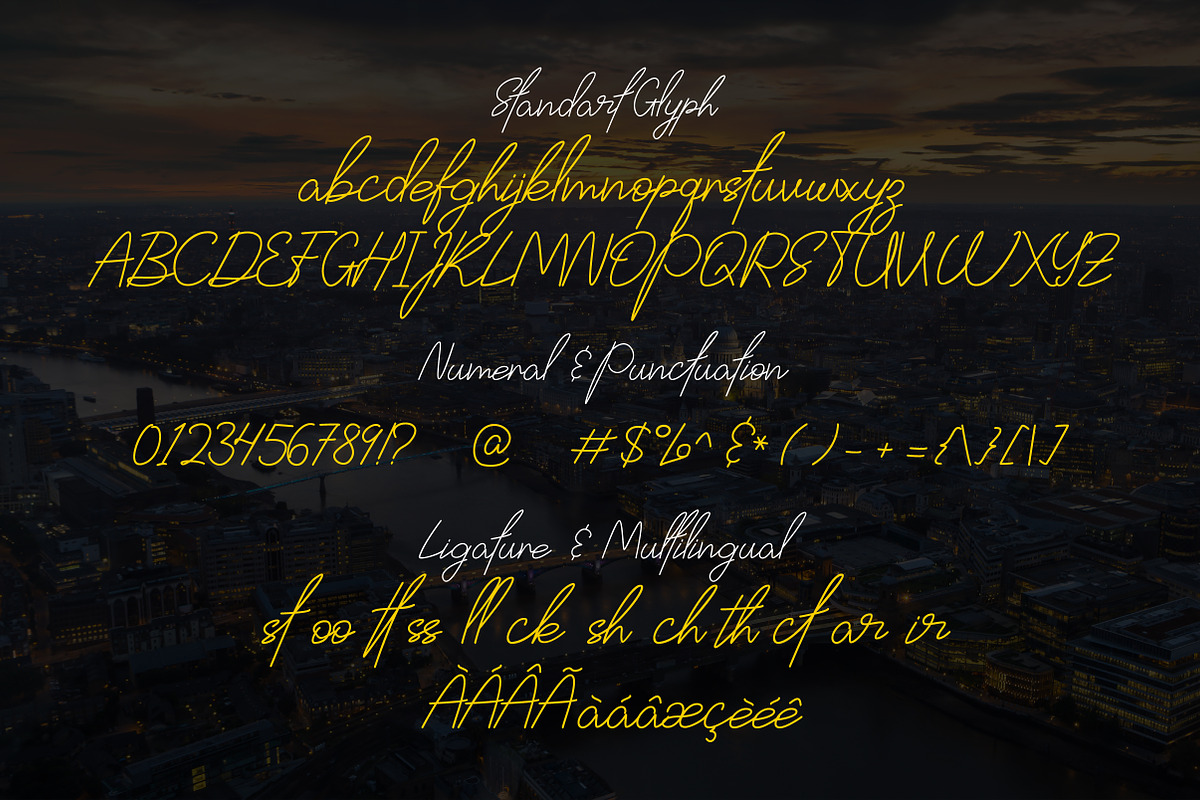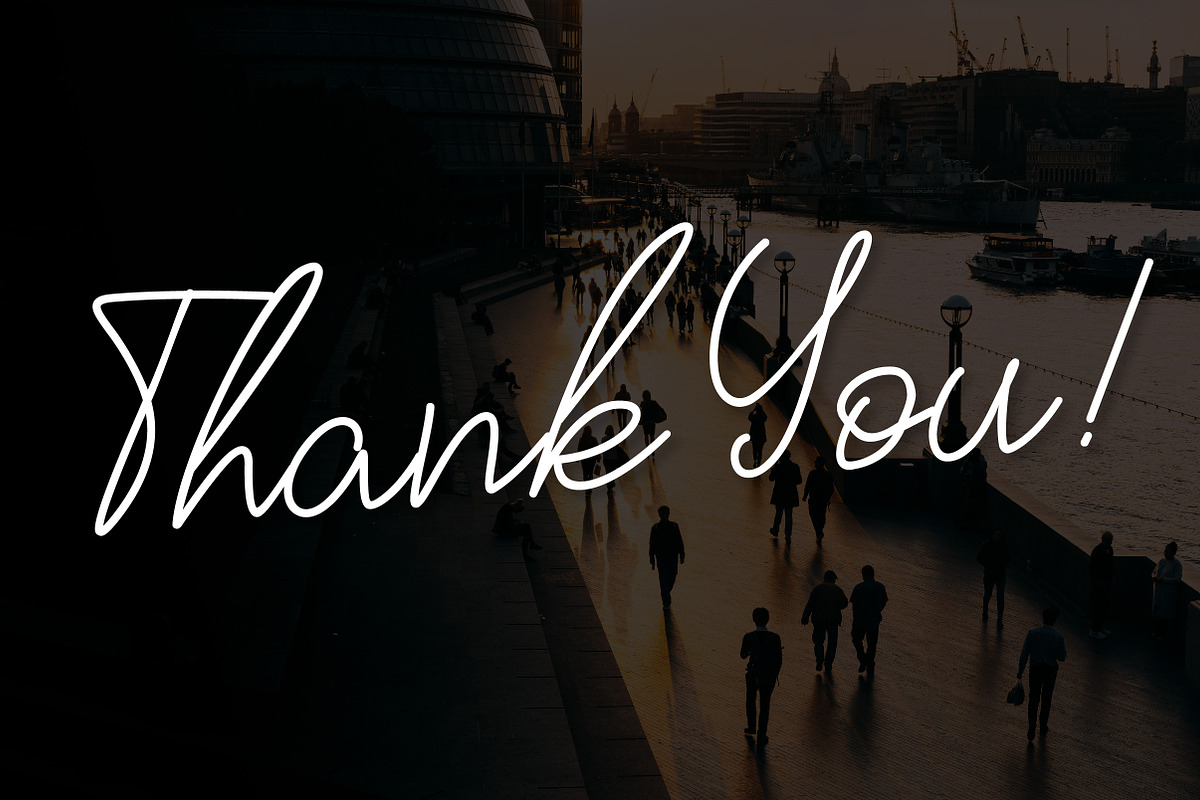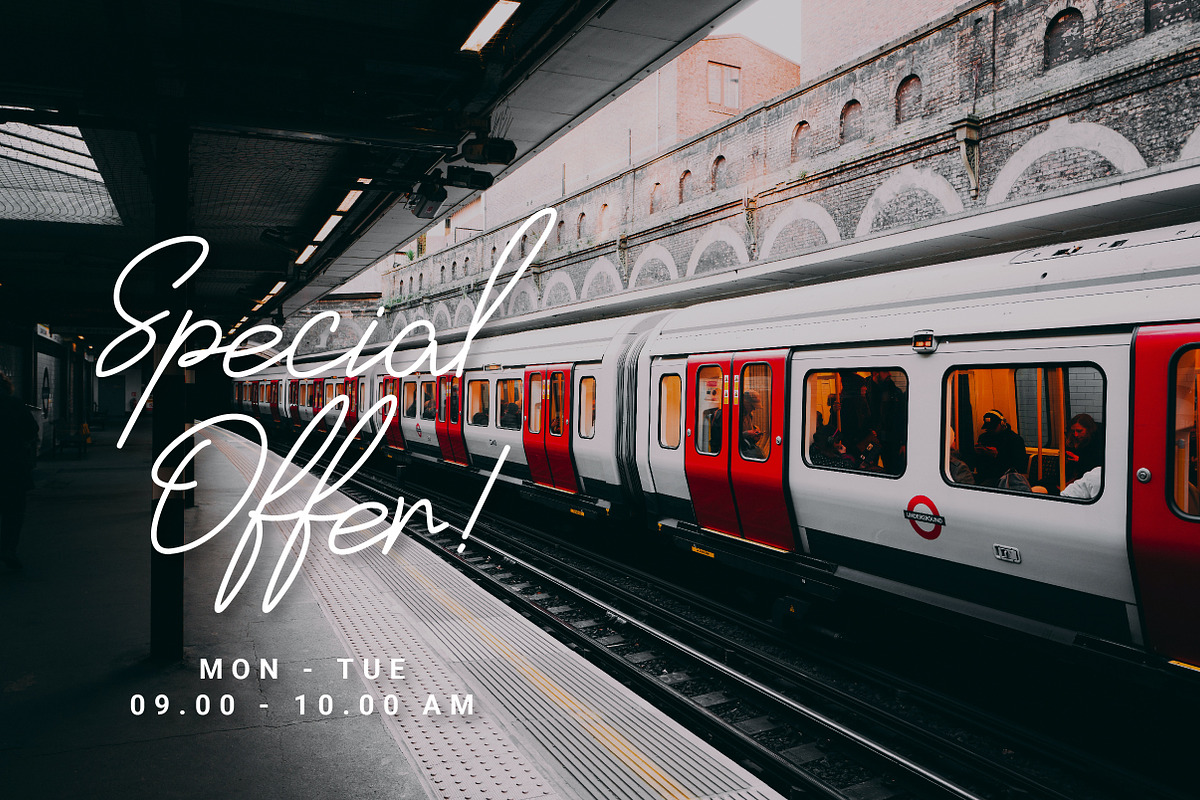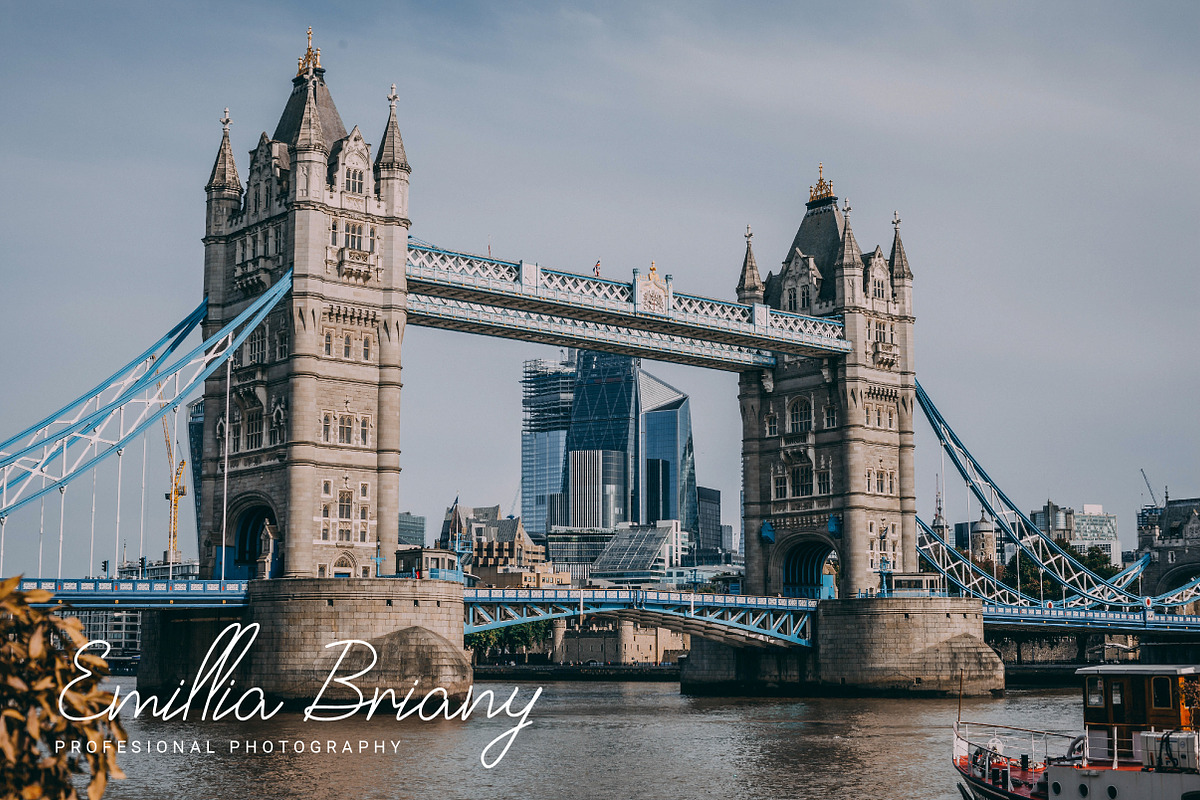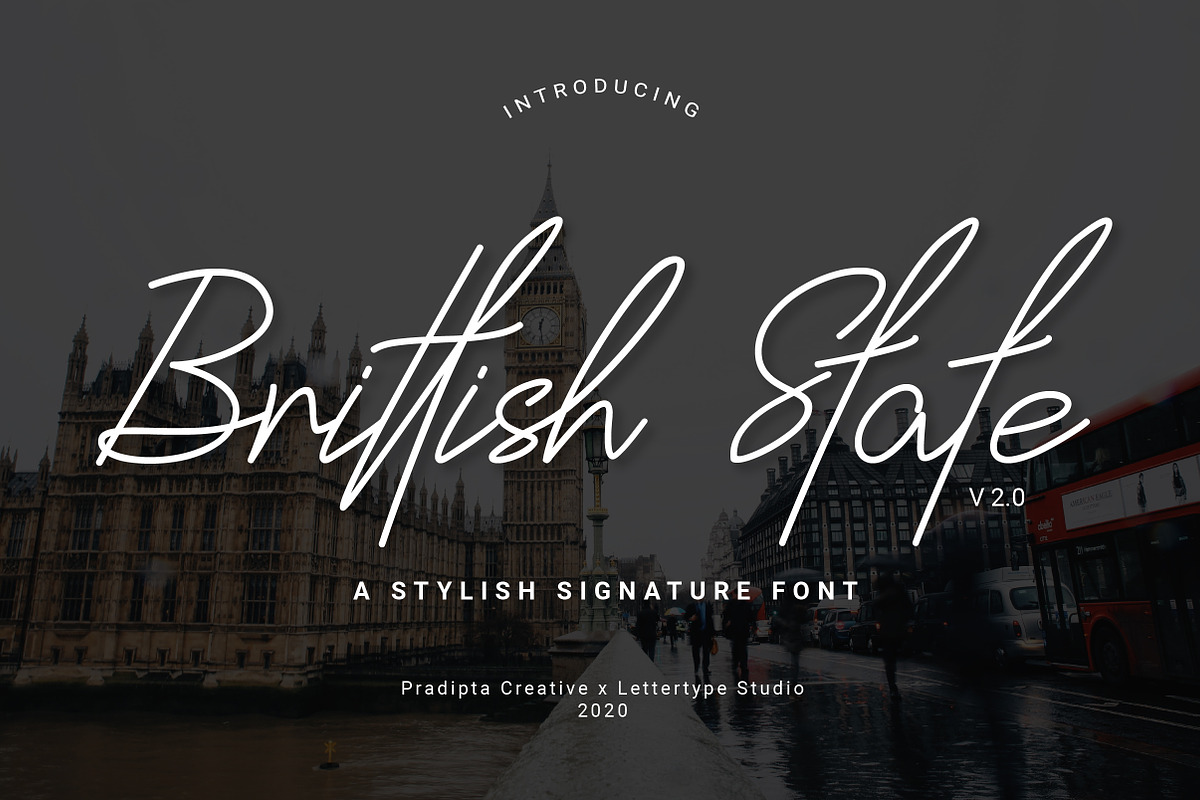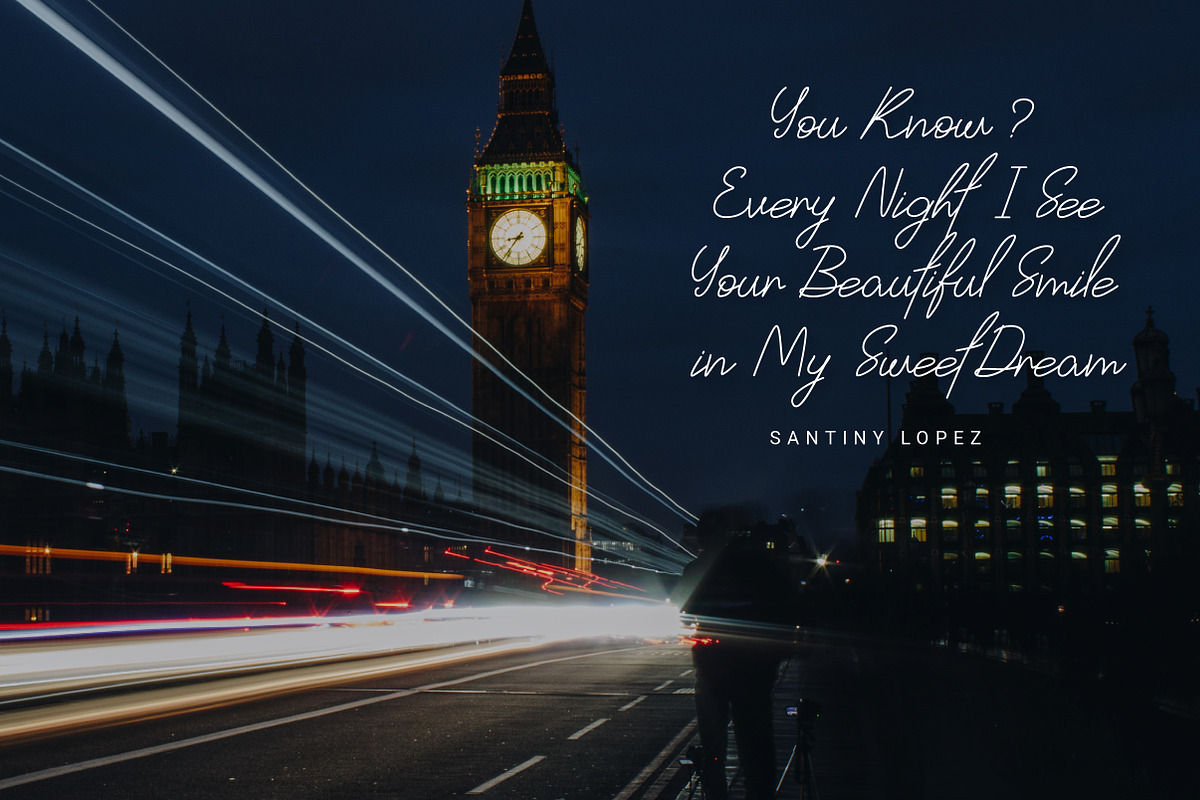
Brittish State Script
Brittish State Script font which stylish natural handwritten font with a beautiful curve in every single corner.
Brittish State Script is perfect for branding projects, logos, wedding designs, social media posts, advertisements, product packaging, product designs, label, photography, watermark, invitation, stationery, and any projects that need handwriting taste.
- Tons of glyphs
- Fonts include multilingual support